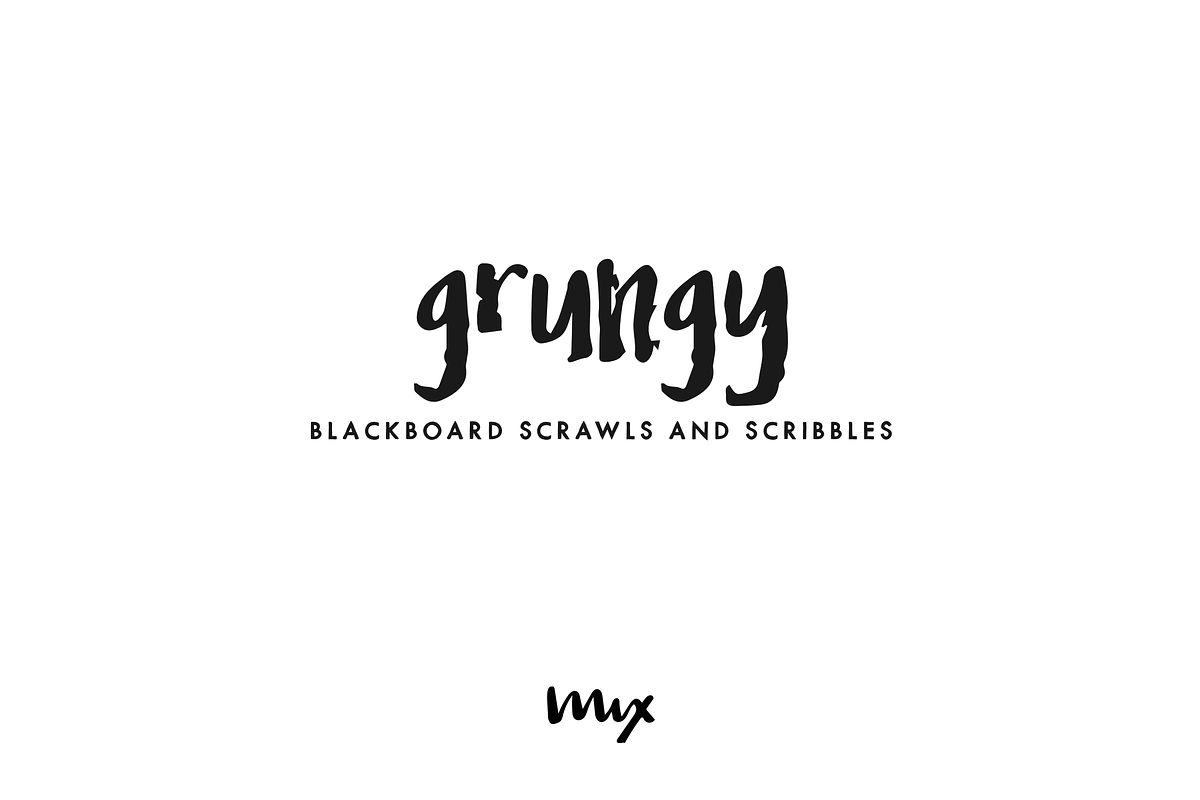
Grungy — Blackboard Scribbles Font Free Download is a bold and expressive typeface inspired by the rough, textured look of chalkboard scribbles. With its messy strokes, imperfect lines, and hand-drawn charm, this font is perfect for creating designs with a raw, urban vibe. It's ideal for posters, branding, album covers, streetwear designs, and anything that needs a bit of rebellious energy.
Whether you're looking to create a gritty, casual design or add an edgy touch to your project, Grungy — Blackboard Scribbles Font Free Download brings an artistic, spontaneous feel to your typography. It’s perfect for making statements, especially in creative projects aimed at youthful or alternative audiences.
Give your designs an energetic, hand-crafted touch with Grungy — Blackboard Scribbles Font Free Download, and bring a bold, raw vibe to your typography. Ideal for creatives looking to add a playful, grungy element to their work.